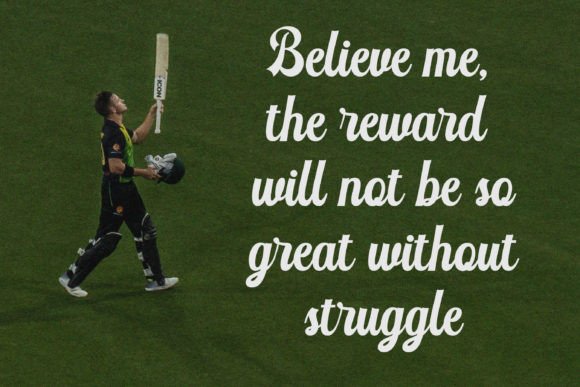
Introducing Detourne: The Ultimate Sports Baseball Font for Your Designs
In the world of sports, baseball holds a special place in the hearts of millions. The crack of the bat, the smell of freshly cut grass, and the thrill of catching a fly ball on a sunny day are experiences that evoke a sense of nostalgia and joy. For designers, capturing the essence of baseball in their work can be a challenge. That’s where the Detourne font comes in – a sports baseball font with a script retro-style that brings the timeless elegance and nostalgic charm of baseball to your designs.
What is Detourne Font?
Detourne is a carefully crafted sports baseball font that embodies the spirit of the game. Its script retro-style letterforms are inspired by the classic typography of baseball’s golden era. With its fluid and stylish lines, Detourne is perfect for sports branding, team jerseys, promotional materials, and more. Whether you’re designing a logo for a local little league team or creating marketing materials for a professional baseball team, Detourne is the perfect choice.
The Inspiration Behind Detourne
The Detourne font was inspired by the rich history of baseball and the nostalgic charm of its vintage typography. The font’s creator, [designer name], drew inspiration from classic baseball posters, jerseys, and promotional materials from the early 20th century. The result is a font that captures the essence of baseball’s past while still feeling modern and fresh.
Benefits of Using Detourne Font
- Unique and Authentic Look: Detourne’s script retro-style letterforms give your designs a unique and authentic look that’s sure to stand out.
- Versatile: Detourne is perfect for a wide range of applications, from sports branding and team jerseys to promotional materials and more.
- Elegant and Nostalgic: Detourne’s fluid and stylish lines evoke the timeless elegance and nostalgic charm of baseball.
- Easy to Read: Despite its ornate style, Detourne is surprisingly easy to read, making it perfect for use in a variety of contexts.
How to Use Detourne Font in Your Designs
Using Detourne in your designs is easy. Here are a few tips to get you started:
- Pair Detourne with a Bold Font: For maximum impact, pair Detourne with a bold font to create a striking contrast.
- Use Detourne for Headlines: Detourne’s elegant and cursive lines make it perfect for use in headlines and titles.
- Add a Vintage Touch: Use Detourne to add a vintage touch to your designs, perfect for creating a retro-style look.
Examples of Detourne Font in Action
Example of Detourne font used in a sports branding campaign
Example of Detourne font used in a team jersey design
Example of Detourne font used in a promotional materials design
In conclusion, Detourne is a sports baseball font that brings the timeless elegance and nostalgic charm of baseball to your designs. With its script retro-style letterforms, Detourne is perfect for sports branding, team jerseys, promotional materials, and more. Whether you’re a designer, a marketer, or simply a baseball fan, Detourne is a must-have font for your design arsenal.